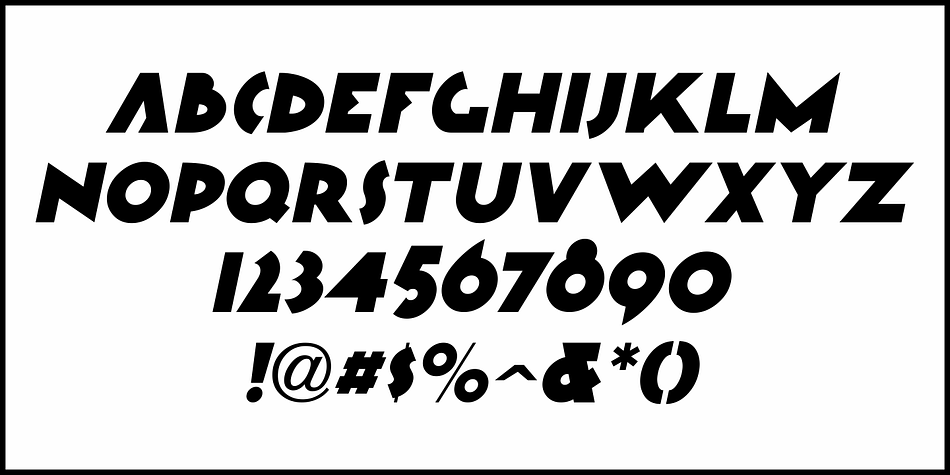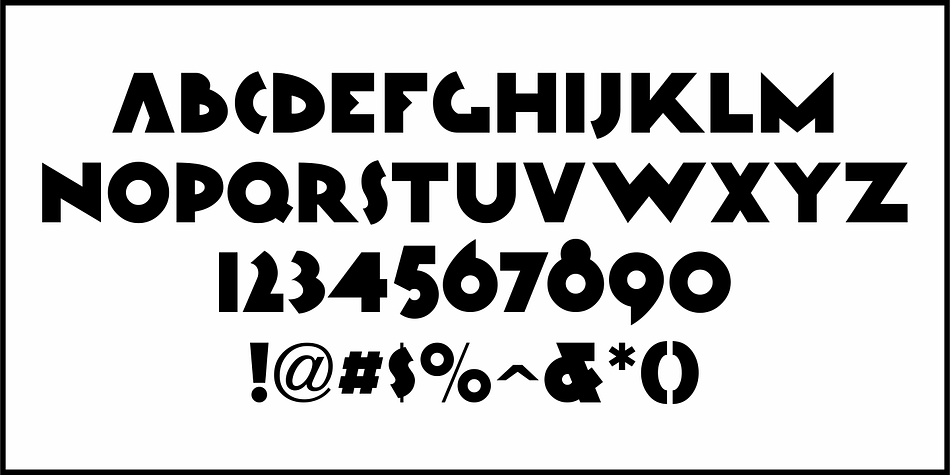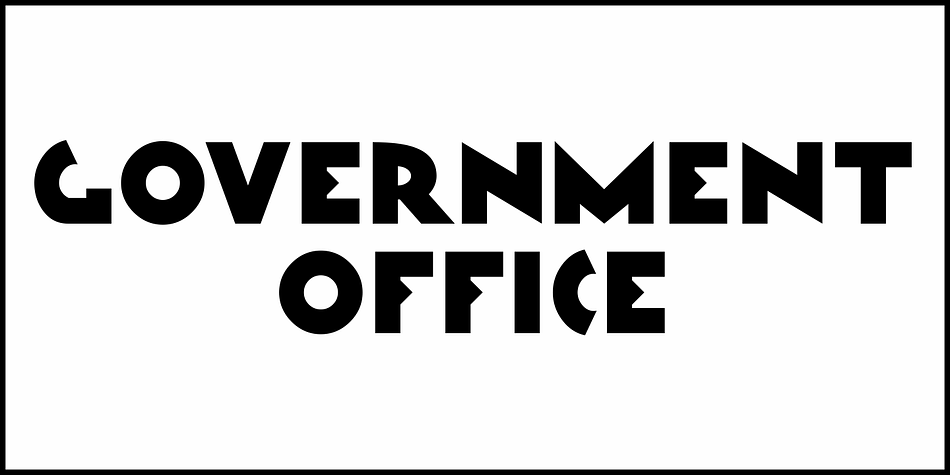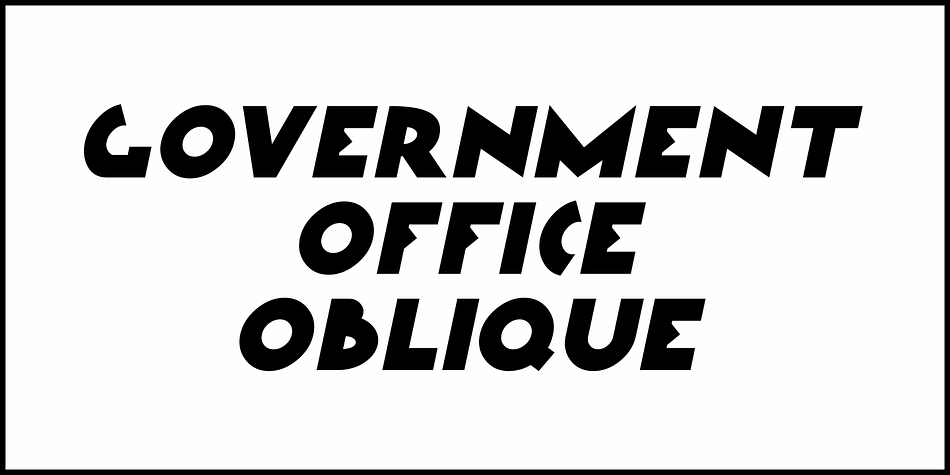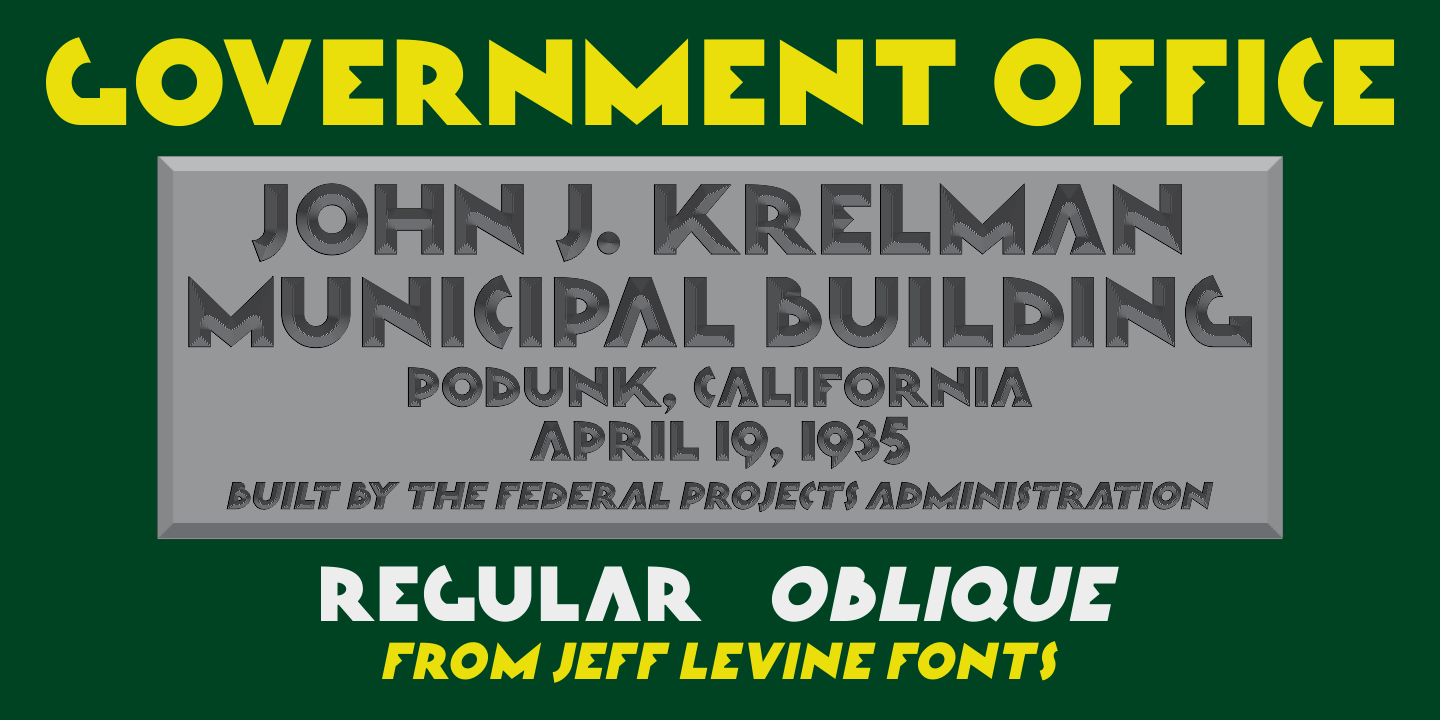
GOVERNMENT OFFICE JNL
Designed by Jeff Levine, Government Office JNL is an art deco font family. This typeface has two styles and was published by Jeff Levine Fonts.
An image of the 1939 dedication plaque for the Porterville, California City Hall (built by the Federal Emergency Administration Public Works Department) was rendered in Art Deco lettering.
This classic sans serif design became the model for Government Office JNL, which is available in both regular and oblique versions.